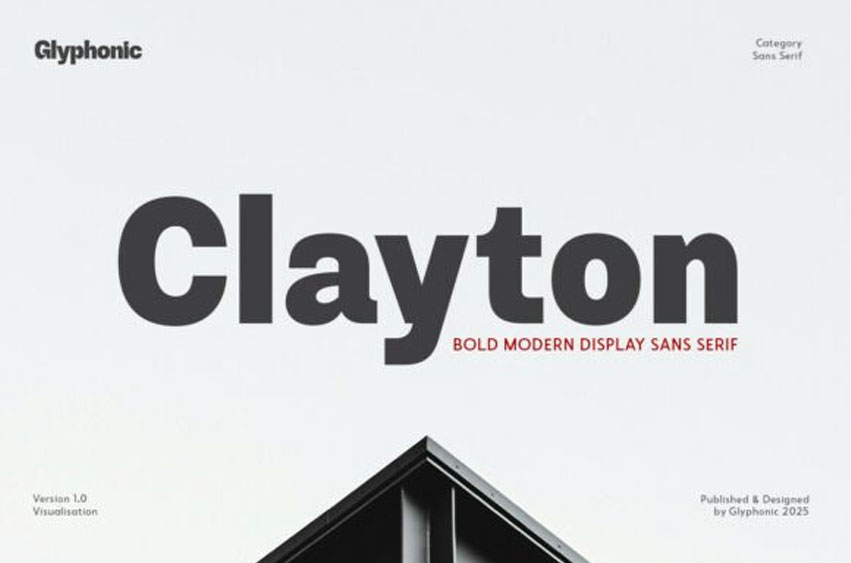
Clayton Font is a bold and modern sans serif font. Perfectly suited for headlines, branding, logos, packaging, and editorial layouts, it’s crafted to leave a lasting impression.
With its high contrast strokes, modern sans, and future style, Clayton brings personality and sophistication to any design. Whether you’re designing for fashion, lifestyle, or artistic visuals, this typeface offers versatility and refined style.